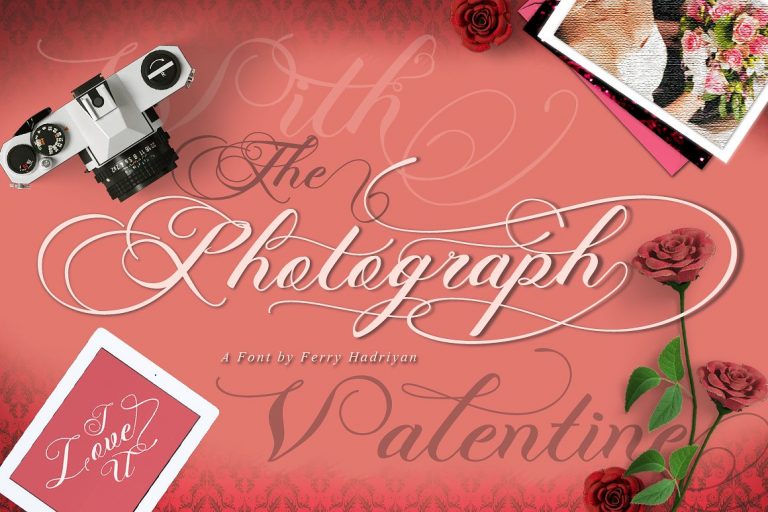
Photograph Script Wedding Font
Go into a more simple but sophisticated direction for your projects with this perfect typography. Introducing Photograph Font. It is was designed and shares by FeyTypeDesign. Photograph is script font with modern calligraphy style, so many 600+ Glyphs with swashes, stylistic set, standard ligatures, Discreationary Ligatures, Titling, Terminal Forms, etc, Suitable for design, element design, wedding, event, t-shirt, logo, badges, sticker, and awesome work, etc…